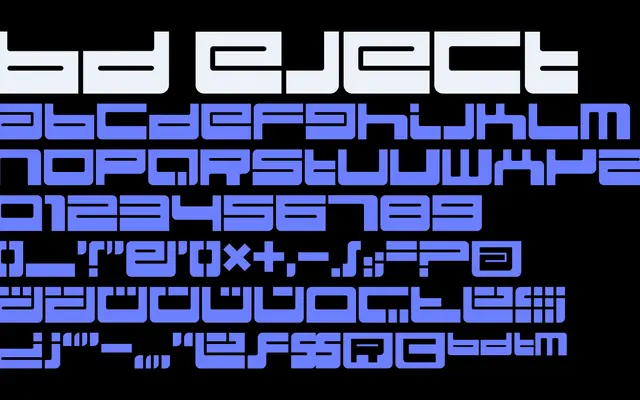
BD Eject
Type Different · Savwo from Cyclone Graphix · 1998
A Y2K mixed-case display typeface from 1998, later remixed with Japanese Katakana variants by Savwo of Cyclone Graphix, Tokyo.
Originally created in 1998 and delivered on floppy disk, BD Eject carries an authentic late-nineties digital aesthetic in its mixed-case forms. Savwo from Cyclone Graphix in Tokyo later extended the family with Katakana variants in three flavours: Lowerphat, Upperphat and Regular. The family covers a broad range of Latin languages alongside Japanese Katakana, making it a distinctive choice for Y2K-inflected design work with cross-cultural reach.
BD Eject is a stylised Y2K-era mixed-case display typeface with a distinctly decorative, culture-specific aesthetic that places it firmly in the display category rather than any neutral or text-oriented style.